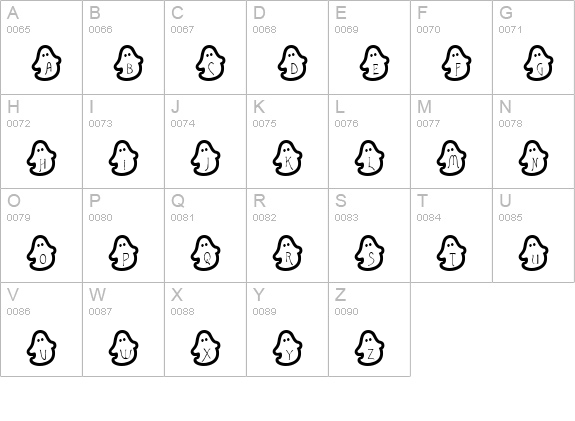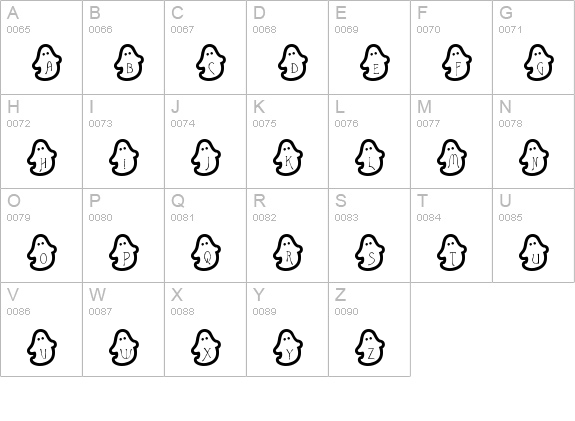
Bouh bouh Font Details
Introducing the exquisite Bouh bouh font, a stunning typeface that effortlessly combines sophistication with whimsy. This unique font features elegant letterforms with a playful twist, making it perfect for a wide range of design projects. Whether you're creating invitations, logos, posters, or any other creative endeavors, Bouh bouh font is sure to make a lasting impression. What's even better is that Bouh bouh font is available for free download at FontsMarket.com. Yes, you read that right - this gorgeous font can be yours at no cost, allowing you to elevate your designs without breaking the bank. So why wait? Head over to FontsMarket.com today and add Bouh bouh font to your collection. Let your creativity shine with this stunning typeface that is as beautiful as it is free.